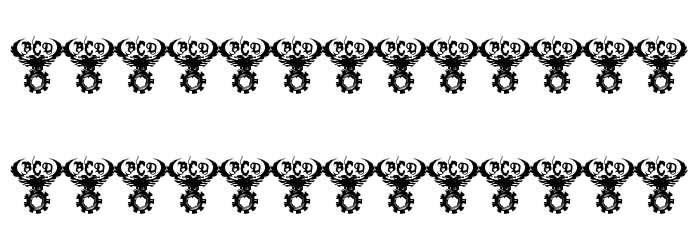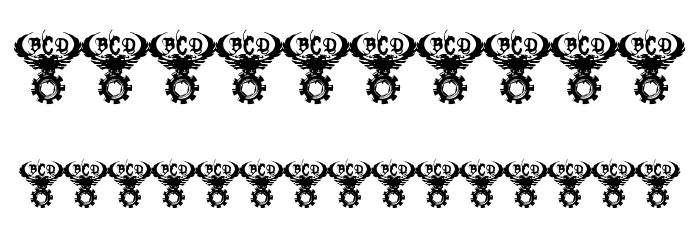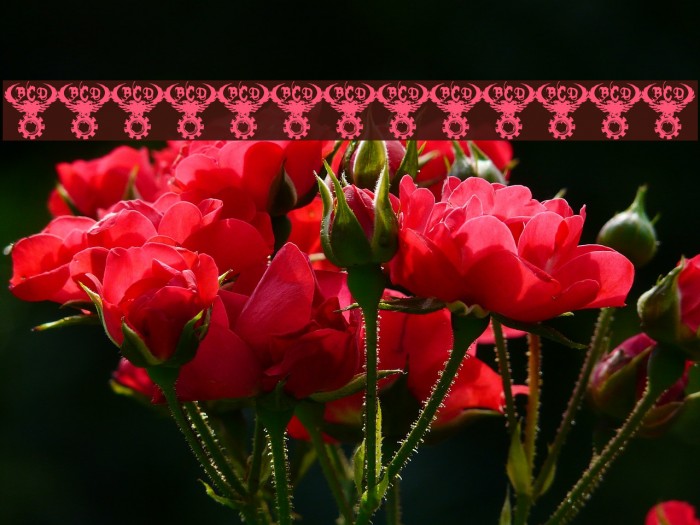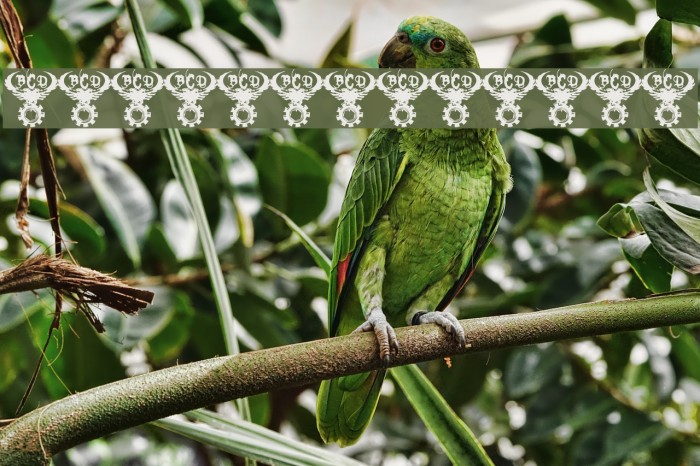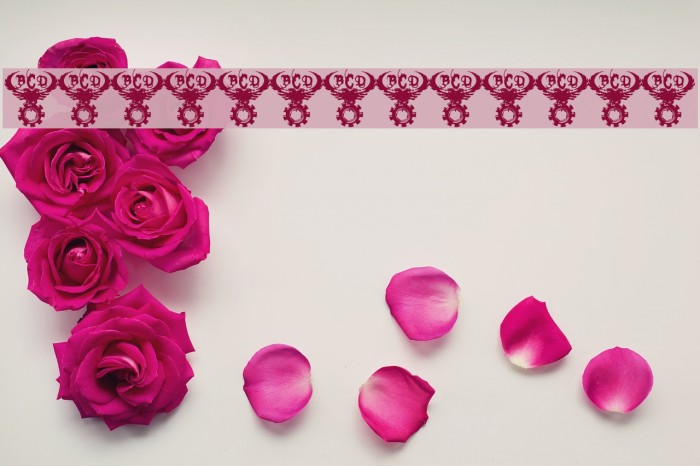
TEK HED ANGRY Font
This font features a highly decorative and intricate design, incorporating elements reminiscent of mechanical or industrial motifs. Each character is encased within a circular gear-like structure, with additional embellishments such as wings or spikes extending outward. The letters themselves are bold and stylized, with a strong emphasis on symmetry and balance. The overall appearance is striking and visually complex, making it suitable for projects that require a bold statement or a unique aesthetic. The font's elaborate design suggests a theme of strength and innovation, ideal for use in contexts that emphasize these qualities.
A decorative, gear-themed font with bold, stylized characters and intricate embellishments.
- Proposed Projects: Ideal for use in steampunk-themed designs, industrial branding, or any project requiring a bold, mechanical aesthetic.
- Use Case: Logos, Posters, Themed Events